This is a collection of best-fire fonts for designing awesome branding and advertising templates for your business. Using these fonts you can design branding templates for fast food businesses, BBQ restaurants, restaurant chains, and sports event branding. The fire effect on the fonts will give a professional and fierce look to your branding designs. You can use these files for designing menu templates, restaurant flyer designs, and restaurant logo designs. You get these fonts with different weights so you can design professional templates by using alternate fonts.
We have collected some of the best fonts from different websites. Some of the best files in the article are handwritten fonts, on-fire fonts, brush sty;e fonts, 3D fonts, and brush style fonts. You can design branding templates for restaurants and eatery outlets. You can give a hot chilli look to your templates by using these files. You get these fonts with different types of ligatures, symbols and numbers to design professional templates. Select the best file that suits your design requirements.
Hot Fire Flame Typeface
- Use these files for designing fiery and hot looking designs. Use these fonts for hot chili branding designs.
- Thee fonts are very perfect for designing invitation templates of BBQ parties.
- You get the A to Z alphabets along with 0-9 numerical to design professional templates.
Creative Handwritten Brush Fonts
- This is a brush style fire typeface for designing branding and advertising templates.
- Using these files you can design logo templates, t shirt designs, product designing, advertisements and stationary branding templates.
On Fire Effect Typeface
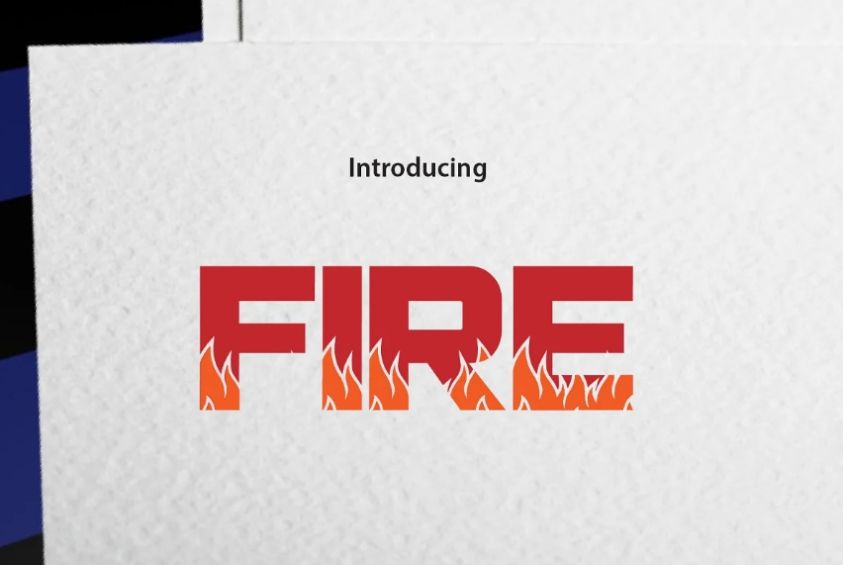
- These are decorative font designs for designing branding and packaging templates.
- The burning look of the fonts are perfect for designing the restaurant logo designs.
- You get three different types of fonts included in the download. You can design unique logos.
- You can change the fire length by using the different types of fonts included in the final download.
Dragon Fire Display Typeface
Double Line Flame Typeface
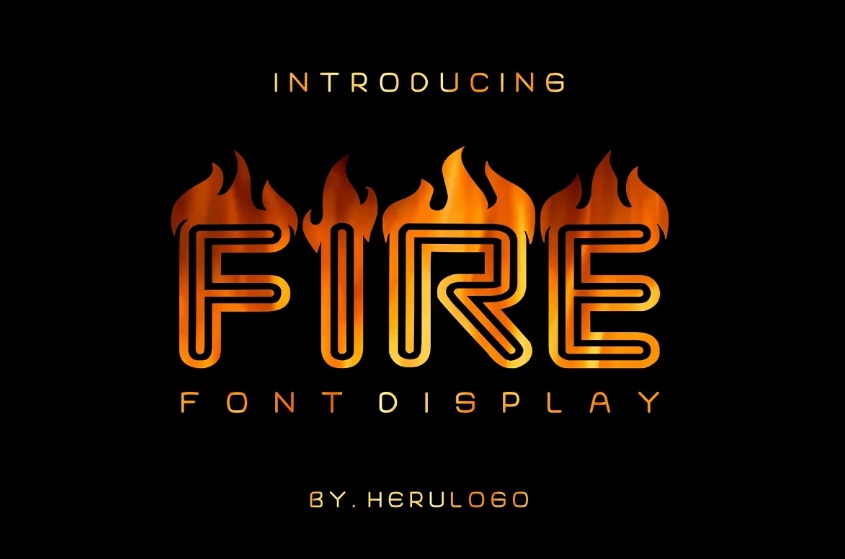
Hand Crafted Authentic Fonts
Angel Fire Brush Typeface
Unique Flaming Typeface
Layered Hot Sauce Font
Flaming Decorative fonts
Fun and Fiery Display Font
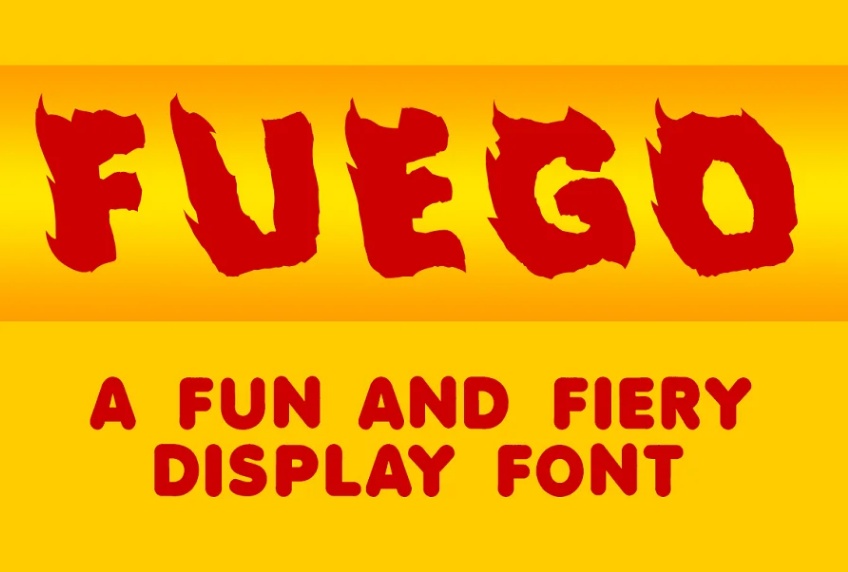
3D Fire Typeface
Spicy Flames Display Typeface
Hot Red Chili Typeface
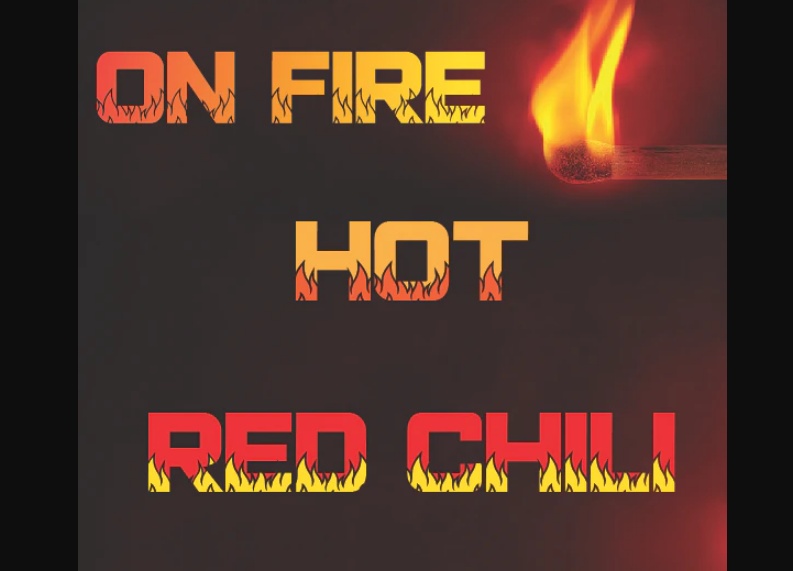
Bold Burning Typeface
Ignition Style Display Fonts
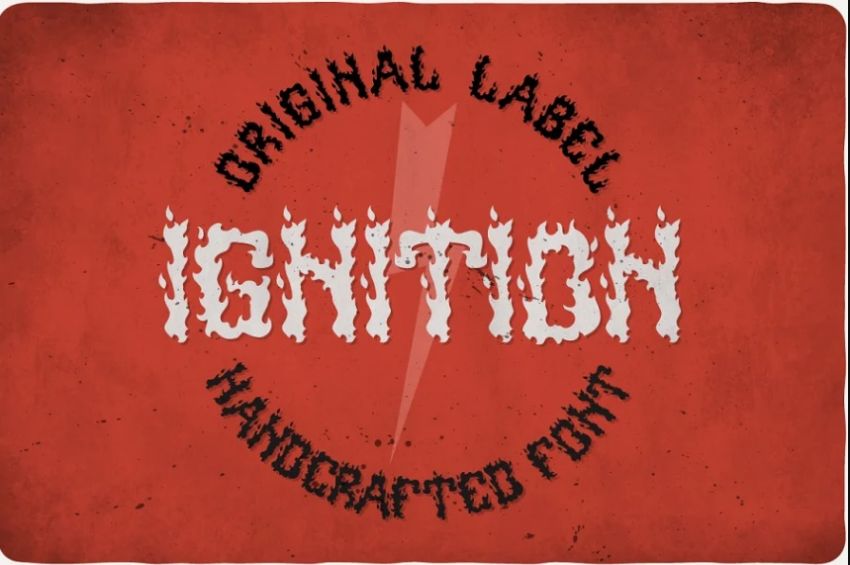
Ice and Fire Typeface Duo